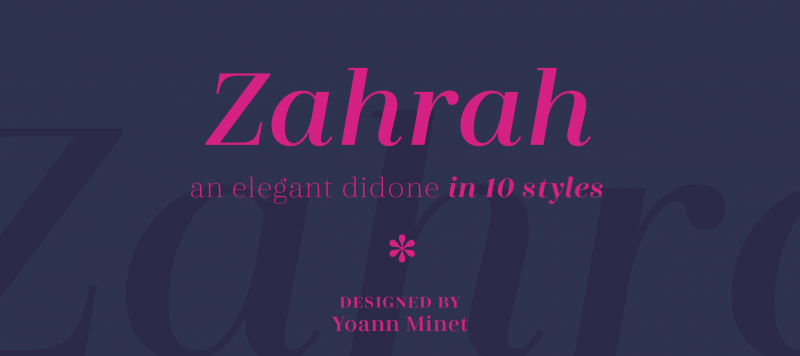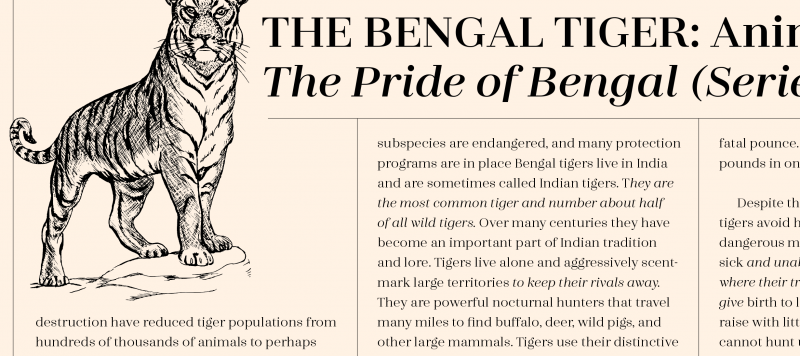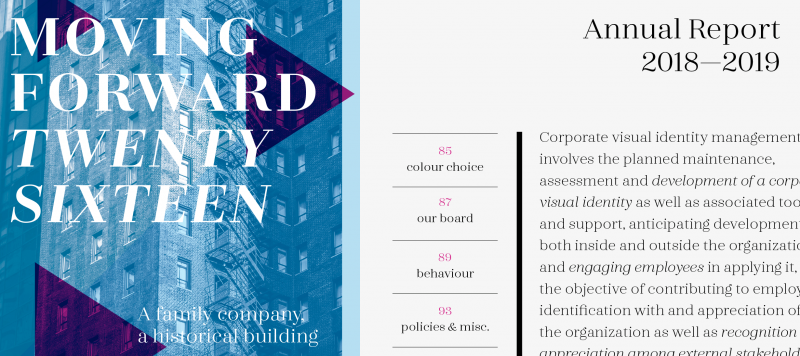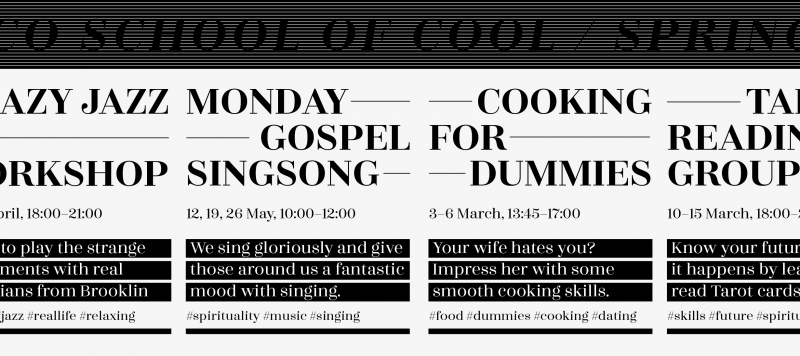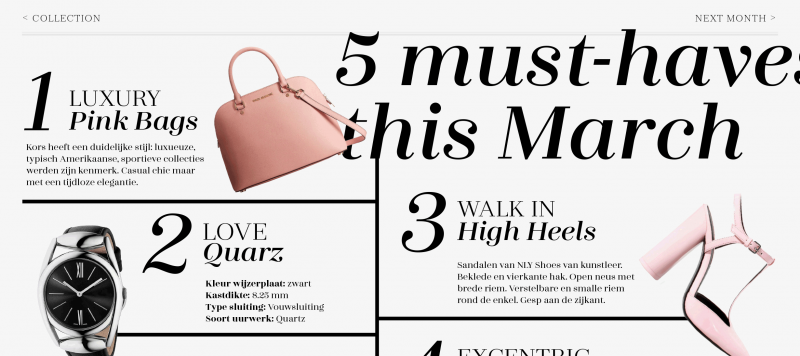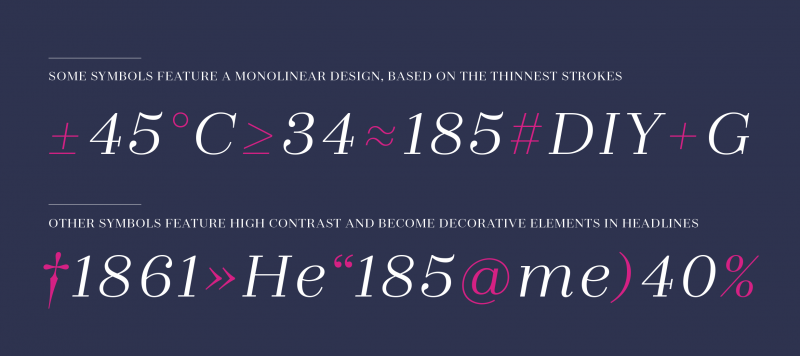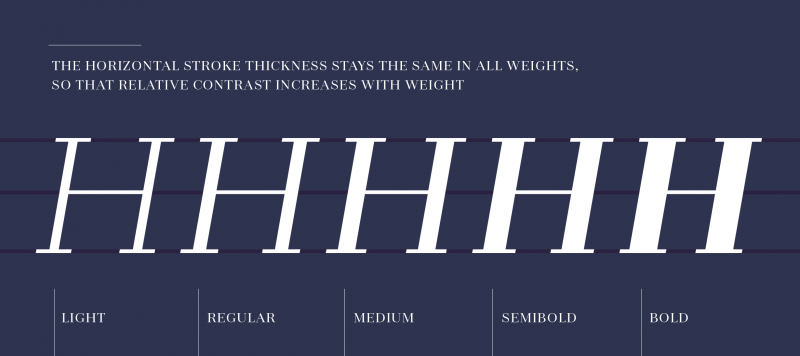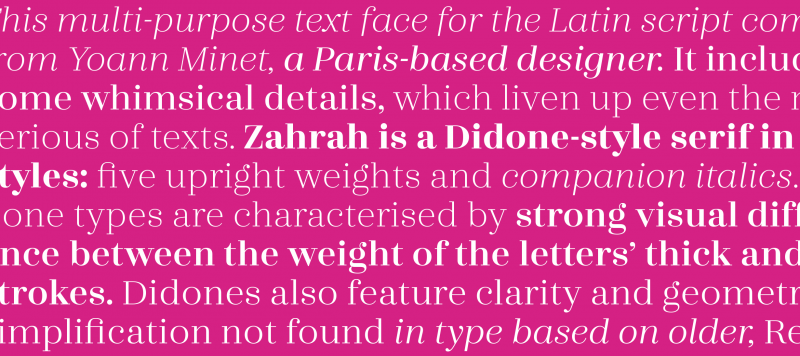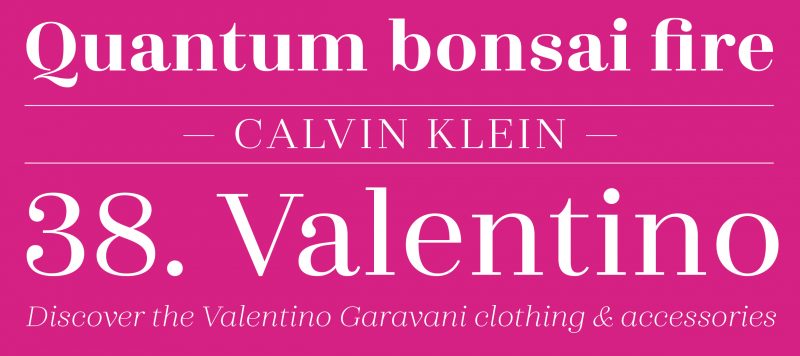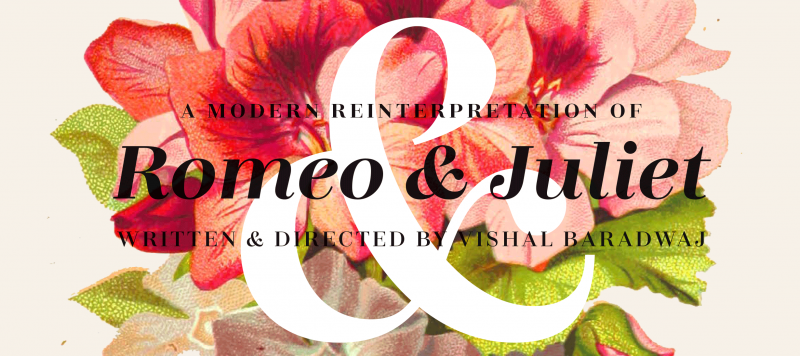
This multi-purpose text face for the Latin script comes from Yoann Minet, a Paris-based designer. It includes some whimsical details, which liven up even the most serious of texts. Zahrah is a Didone-style serif in ten styles: five upright weights and companion italics. Didone types are characterised by strong visual difference between the weight of the letters’ thick stroke and thin strokes. Didones also feature clarity and geometric simplification not found in type based on older, Renaissance models. Didone faces are used for a wide variety of applications: from fashion or cosmetic labels to newspaper text, and from academic publications to the annual reports of Fortune 500 companies. They may be selected for almost anything – and there’s no reason they shouldn’t shape the text of your newest websites or apps.
Family Name | Zahrah |
Designer(s) | Yoann Minet |
Classification | Serif, Display |